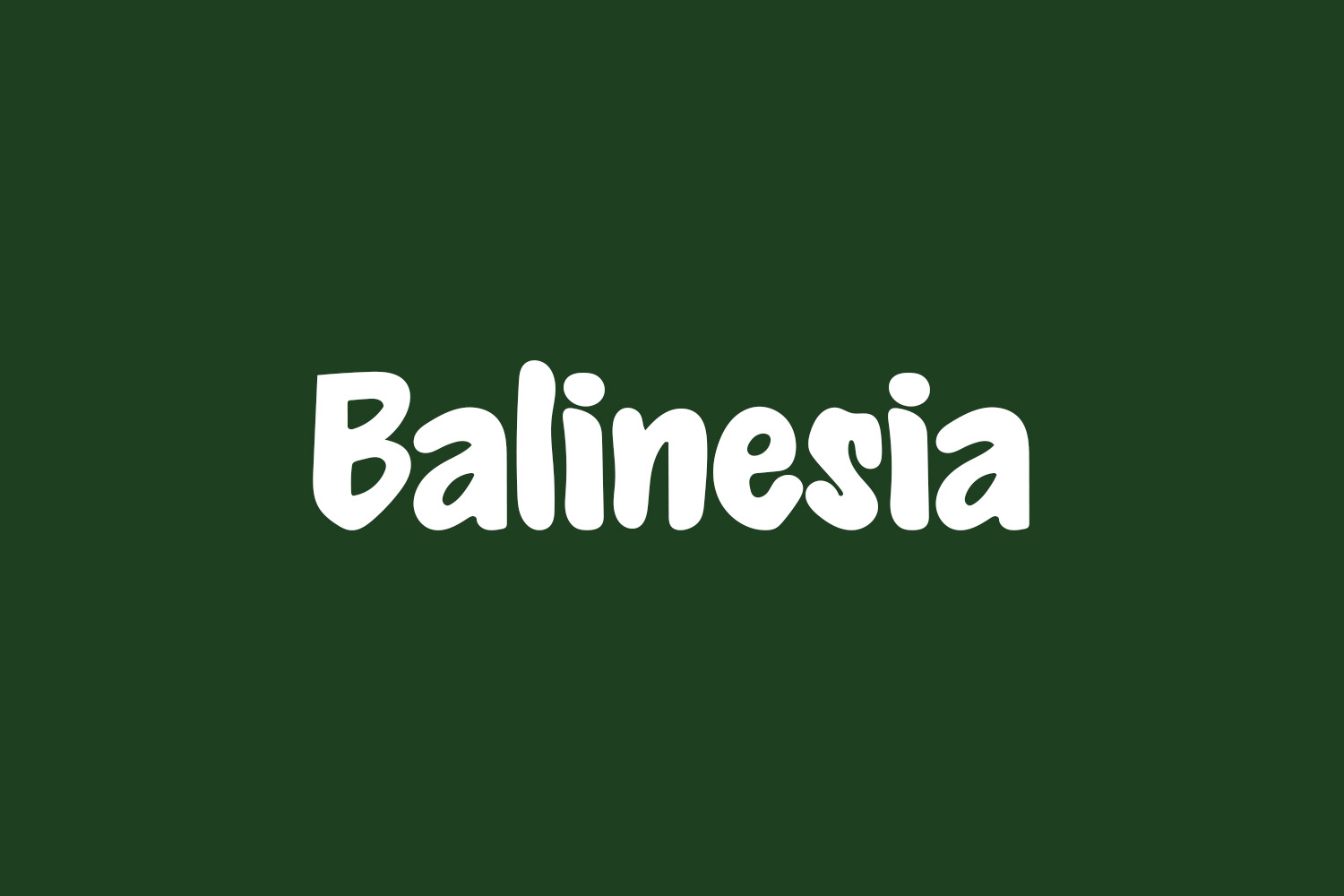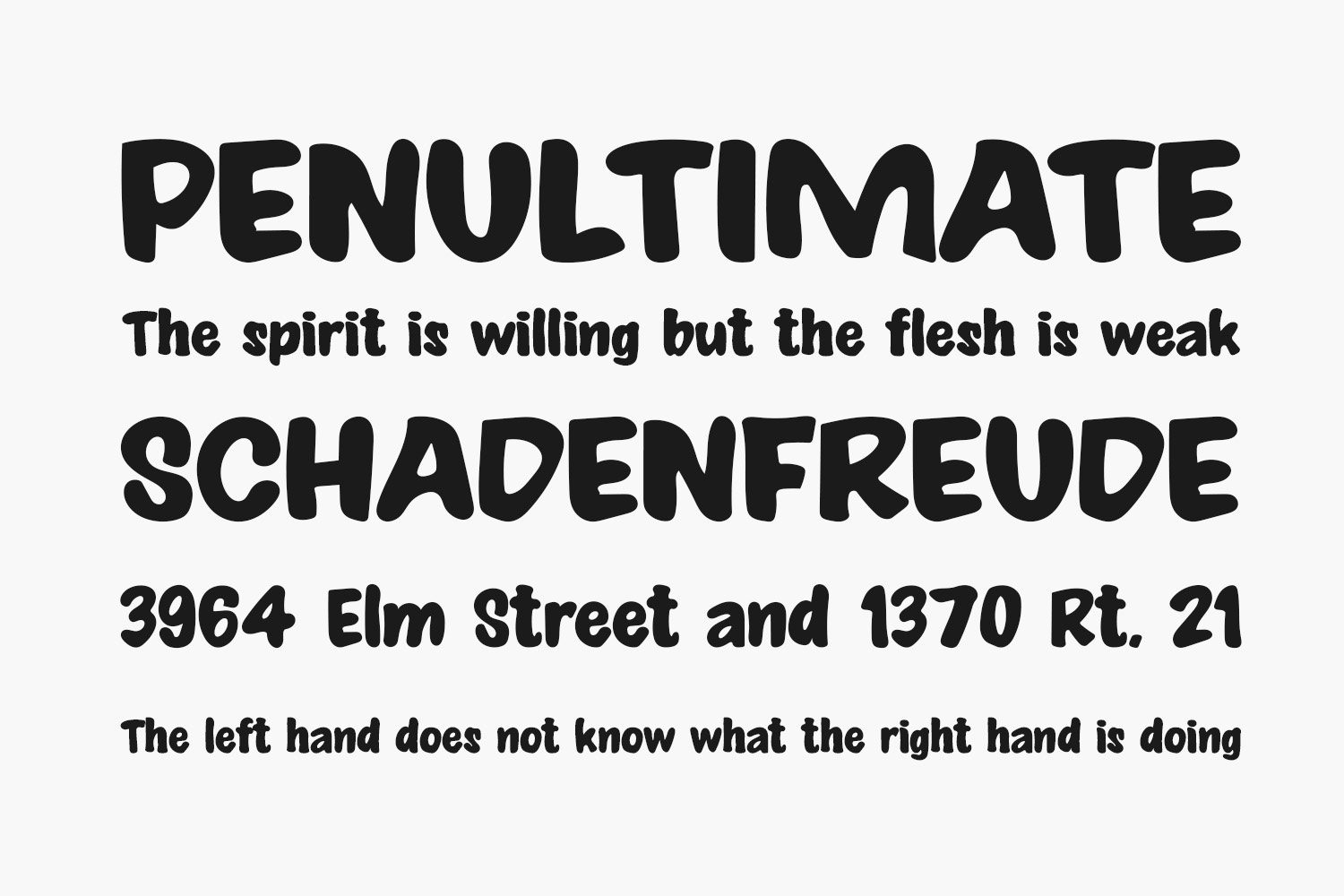
Balinesia Free Font is a cool and friendly display font. It embodies playfulness and joy and is the perfect choice for any children’s activity or school project. Balinesia Free Font was designed by Creative Zone and is free for personal use only. Please purchase the full version for commercial use.